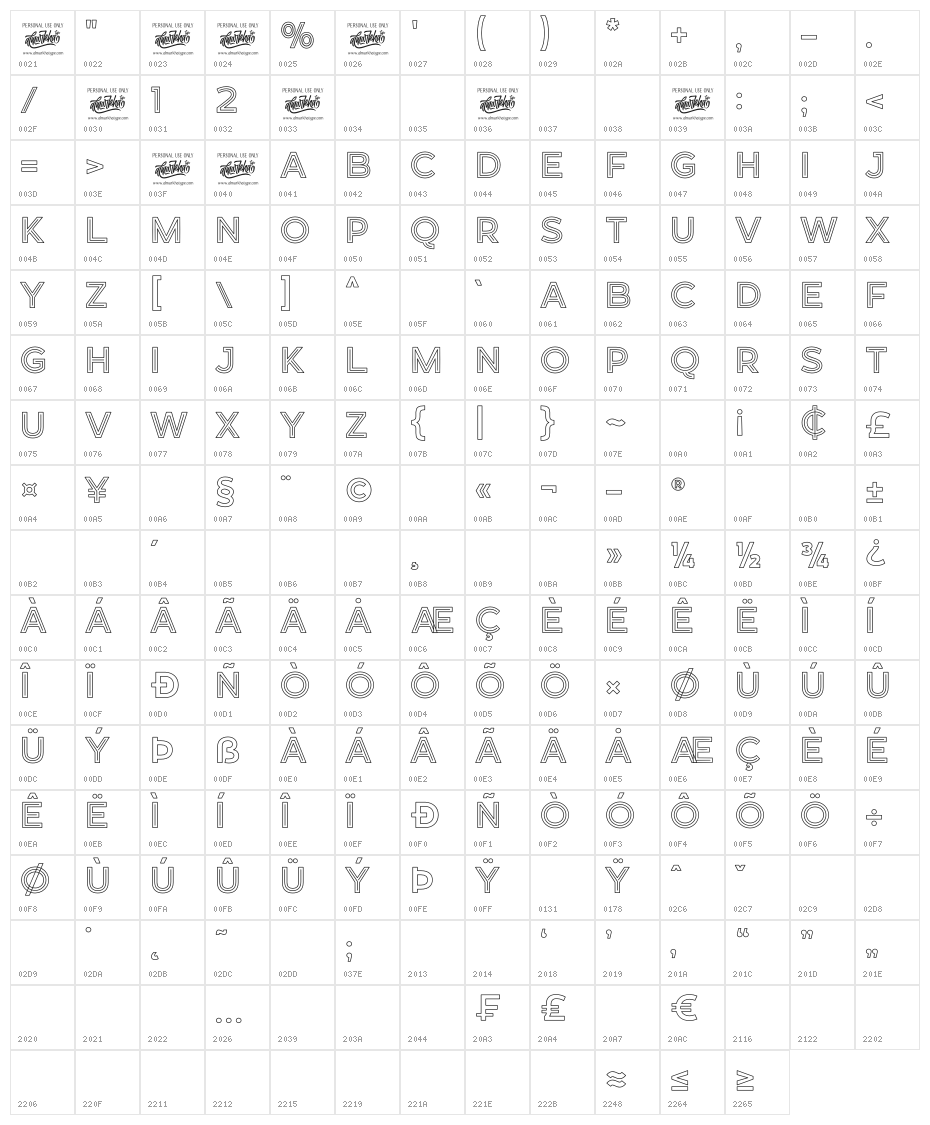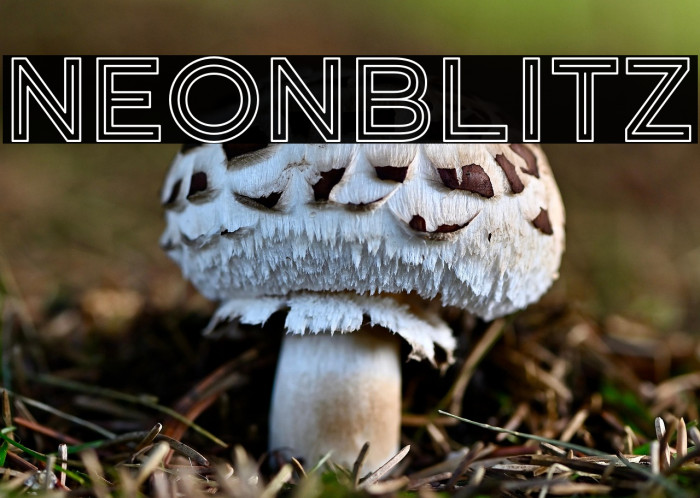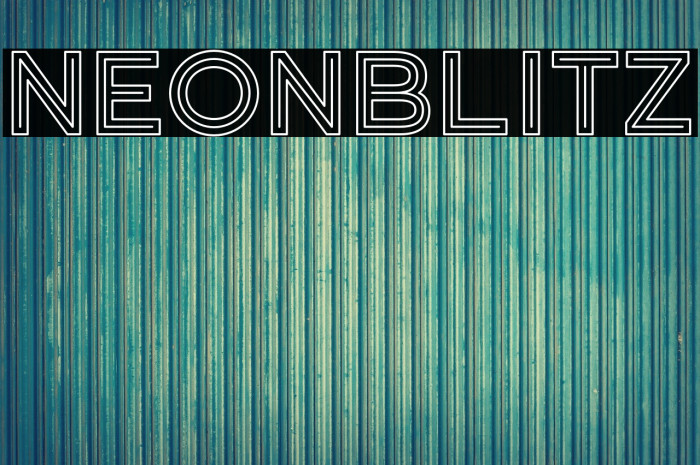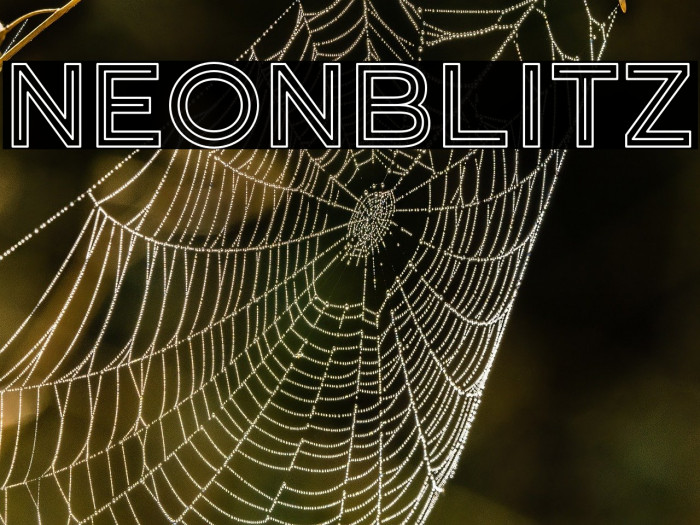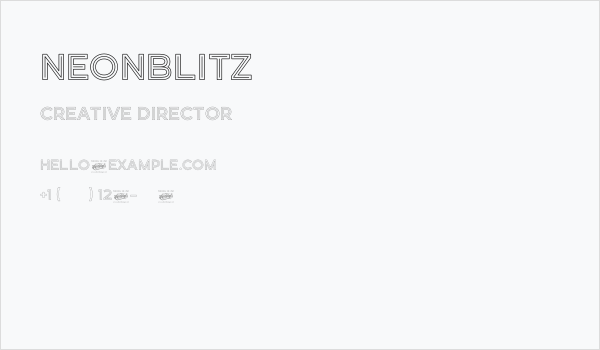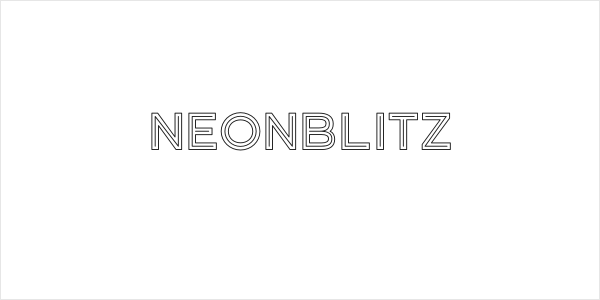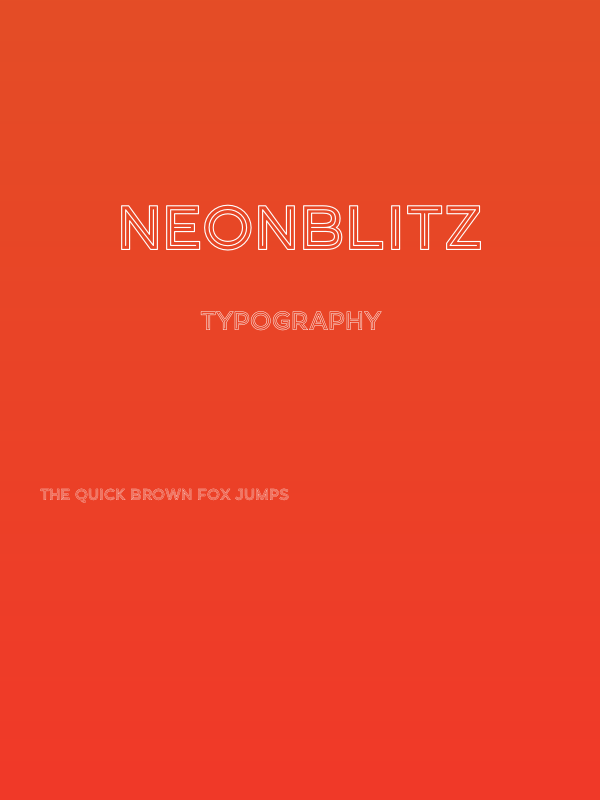
Neonblitz Font
Neonblitz Description
This font features a modern, geometric design with a distinct outline style that mimics neon lighting. The uppercase letters are bold and structured, with clean lines and a uniform width that gives them a striking appearance. The characters are evenly spaced, providing a balanced and cohesive look. The font's unique style makes it ideal for creating eye-catching headlines or logos that require a contemporary and vibrant aesthetic. The overall design is sleek and stylish, with a focus on clarity and impact.
| Proposed Projects | Ideal for projects such as neon-themed posters, modern branding, event invitations, and digital media graphics. |